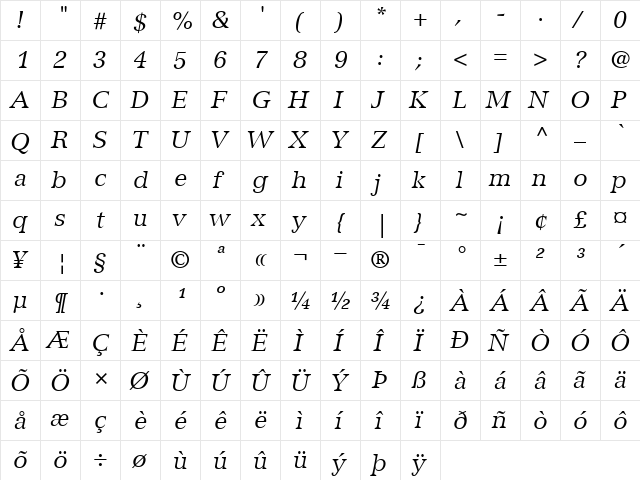
Versailles56 RomanItalic
Design Context for Versailles56 Typeface
Versailles56 takes a measured approach to typography — its balanced proportions and neutral character make it a reliable workhorse for both digital and print work. The slanted form adds forward momentum and visual energy.